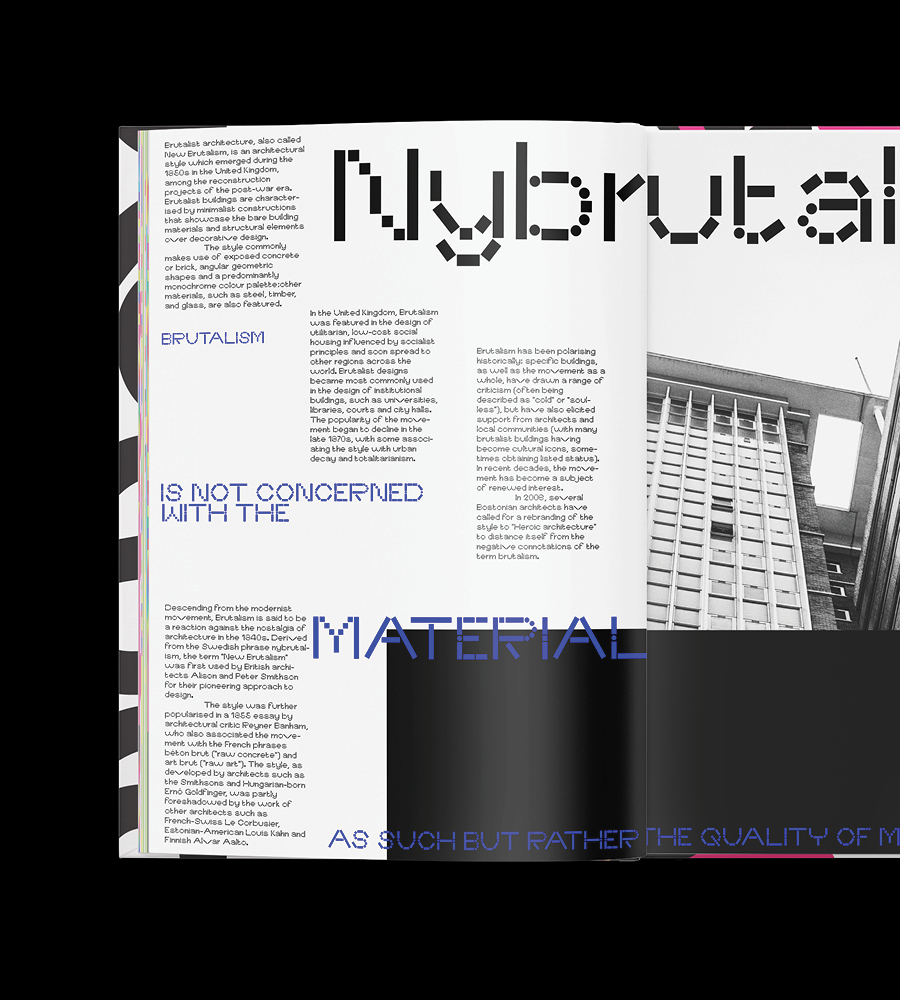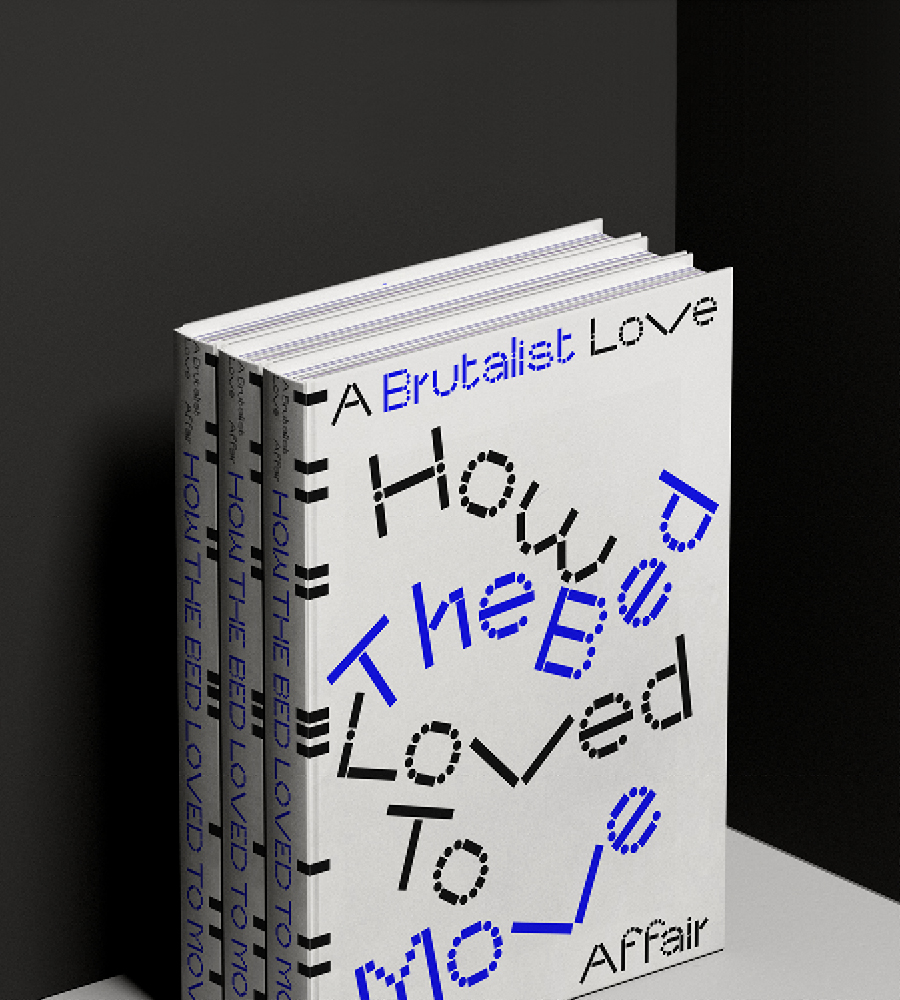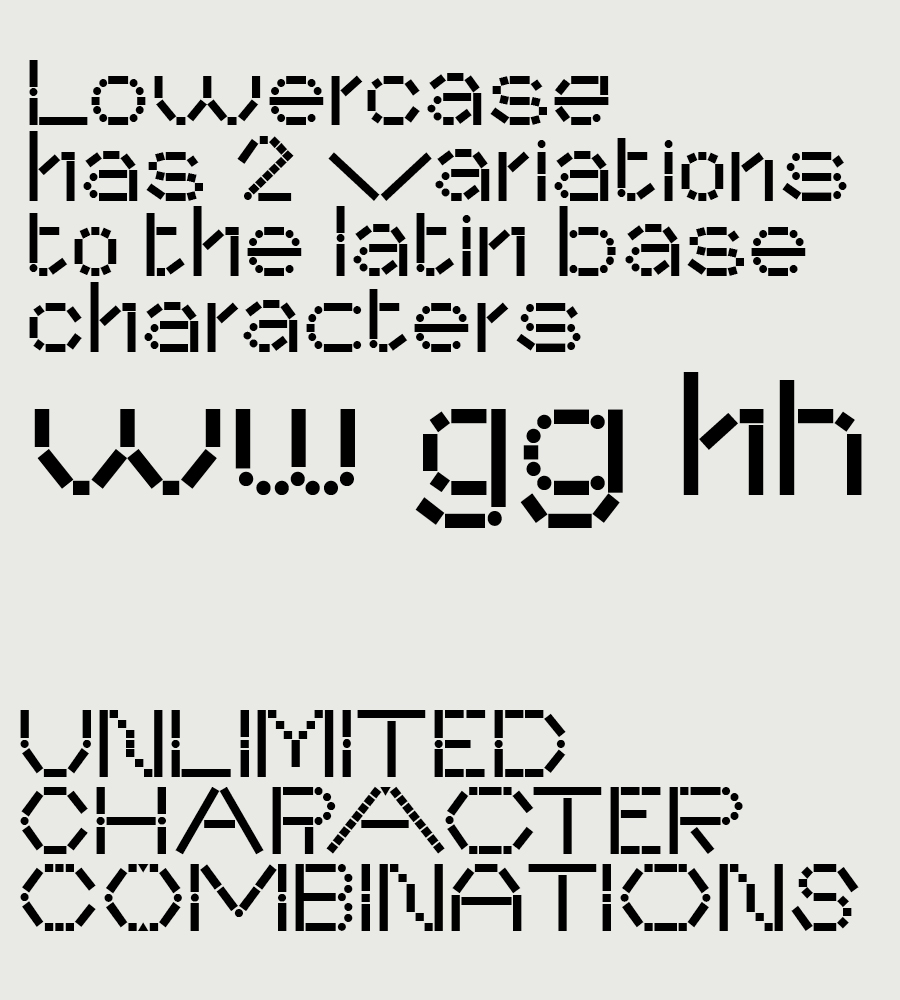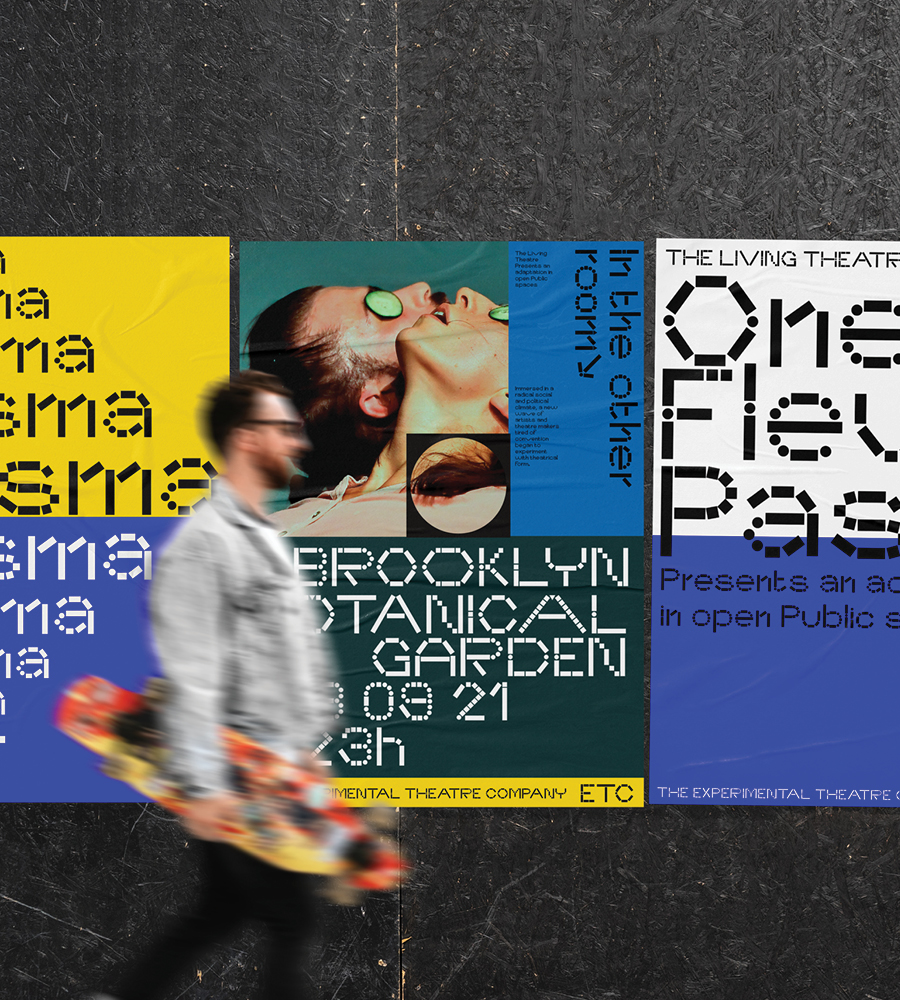
Plasma is a stylistic modular font developed to give freshness to graphic projects. The font includes diverse and versatile styles of an extensive character set with over 80 alternative glyphs allowing glyph mixing and giving the typeface a unique personality. The font is perfect for branding communications giving a distinct visual balance.